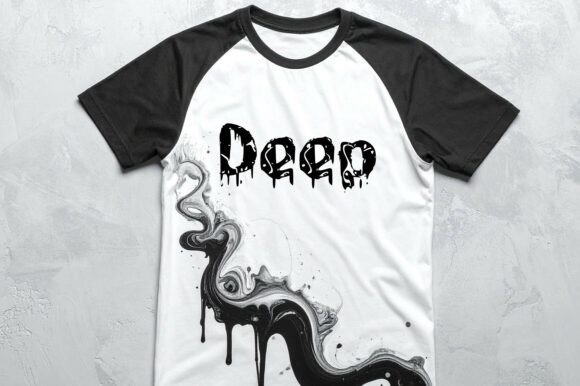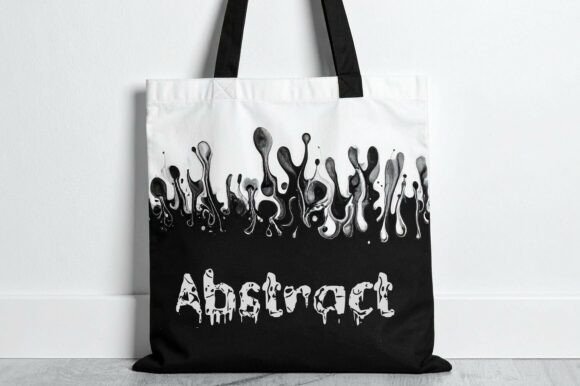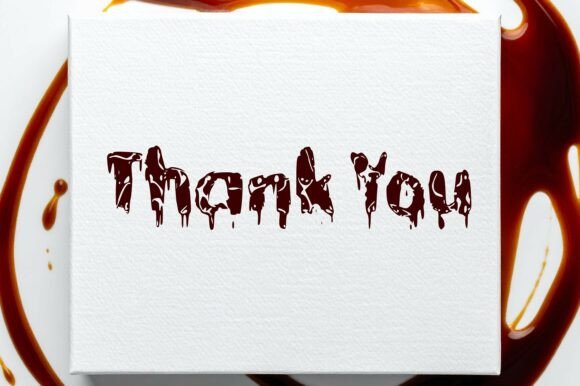
Unleashing the Unbridled Energy of Caos Kecap Font
In the realm of typography, few fonts manage to capture the essence of raw, unhinged splendor as effectively as Caos Kecap. This decorative display font is an unconventional masterpiece that defies traditional norms, offering a visual experience that is as captivating as it is unsettling. Each letter in Caos Kecap appears to ebb and flow with a lifelike vitality, as if sculpted from a deep, pulsating ichor. This could be the blood of a conspiracy, the ink of a poet’s lament, or, as hinted by its playful title, a delicious drizzle of exotic condiments like soy sauce or ketchup.
The Organic Imperfection of Caos Kecap
Caos Kecap’s design is characterized by its organic disorder and intricately imperfect features. Every ink blot and blotch contributes to a raspy charm that is both captivating and unnerving. This typographic embodiment of the abnormal, the grotesque, and the unsettling is perfect for narratives that thrive on horror, mystery, and grunge aesthetics. The font’s unique character makes it an ideal choice for a variety of creative projects, including Halloween graphics, horror movie titles, gritty merchandise, punk/metal band logos, or the bold theming of escape rooms.
A Font That Tells a Story
More than just a typeface, Caos Kecap is a tool for storytelling. Its unsettling allure invites designers to craft visuals that are not only striking but also emotionally charged. The font’s ability to evoke a sense of unease and intrigue makes it perfect for projects that require a bold and daring aesthetic. Whether you’re creating a haunting atmosphere for a horror movie or a bold statement for a punk band, Caos Kecap provides the typographic foundation for narratives that push boundaries.
Design Applications of Caos Kecap
The versatility of Caos Kecap makes it suitable for a wide range of design applications. Here are a few examples:
- Halloween Graphics: Create spooky and captivating visuals for Halloween-themed projects, such as posters, flyers, and social media graphics.
- Horror Movie Titles: Add a touch of horror and suspense to your movie titles with Caos Kecap’s unsettling and eerie aesthetic.
- Gritty Merchandise: Design bold and eye-catching merchandise, such as t-shirts, stickers, and patches, that reflect the raw energy of Caos Kecap.
- Punk/Metal Band Logos: Create striking and memorable logos for punk and metal bands that embody the spirit of rebellion and nonconformity.
- Escape Room Theming: Use Caos Kecap to create immersive and thrilling experiences for escape room enthusiasts.
Why Choose Caos Kecap?
Caos Kecap offers a unique combination of characteristics that make it an attractive choice for designers and crafters. Here are a few reasons why you should consider using Caos Kecap in your next project:
- Unparalleled Uniqueness: Caos Kecap’s distinctive design ensures that your project stands out from the crowd.
- Emotional Resonance: The font’s ability to evoke emotions makes it perfect for projects that require a deeper connection with the audience.
- Versatility: Caos Kecap can be used in a variety of design applications, from horror and mystery to grunge and punk aesthetics.
- Craftsmanship: The font’s intricate details and organic imperfections reflect the craftsmanship and attention to detail that goes into its design.
Caos Kecap is more than just a font – it’s a creative tool that empowers designers to craft striking, potent, and emotionally charged visuals. Its raw energy, organic imperfections, and unsettling allure make it perfect for projects that require a bold and daring aesthetic. Whether you’re a designer, crafter, or simply someone who appreciates the art of typography, Caos Kecap is an exceptional choice for elevating your creative projects to new heights.